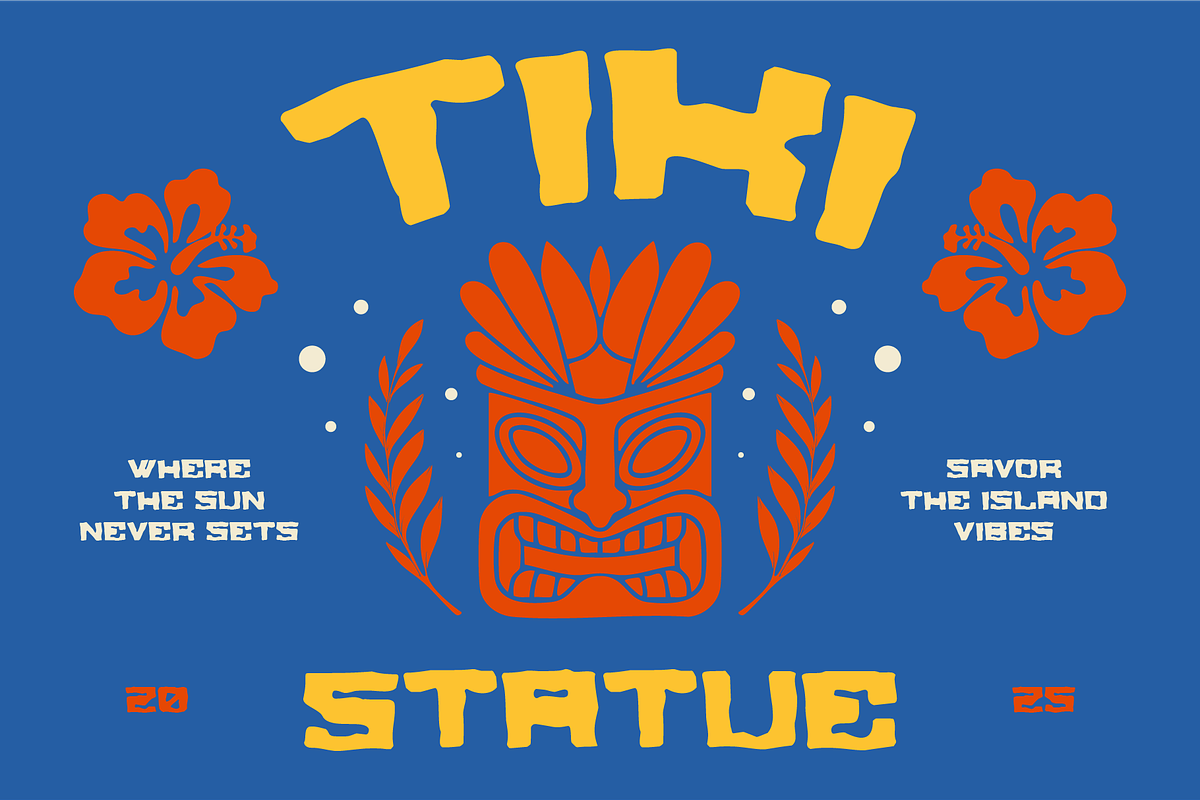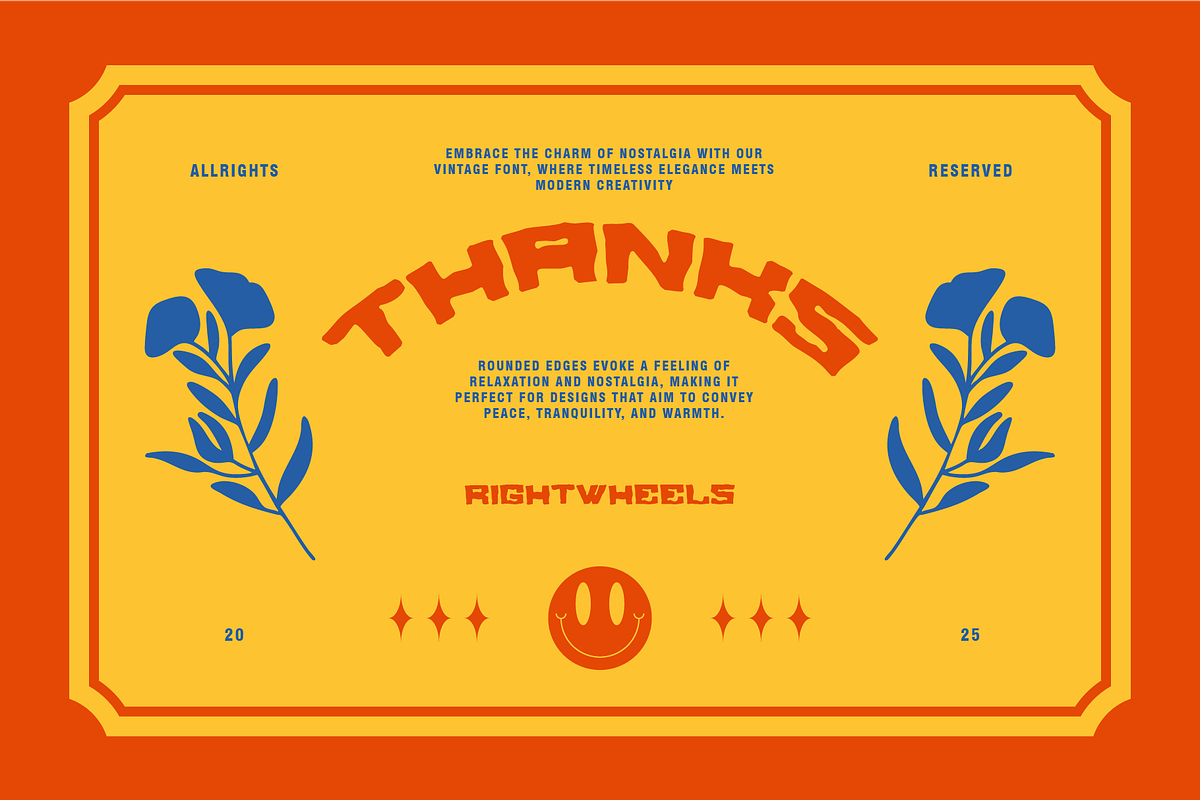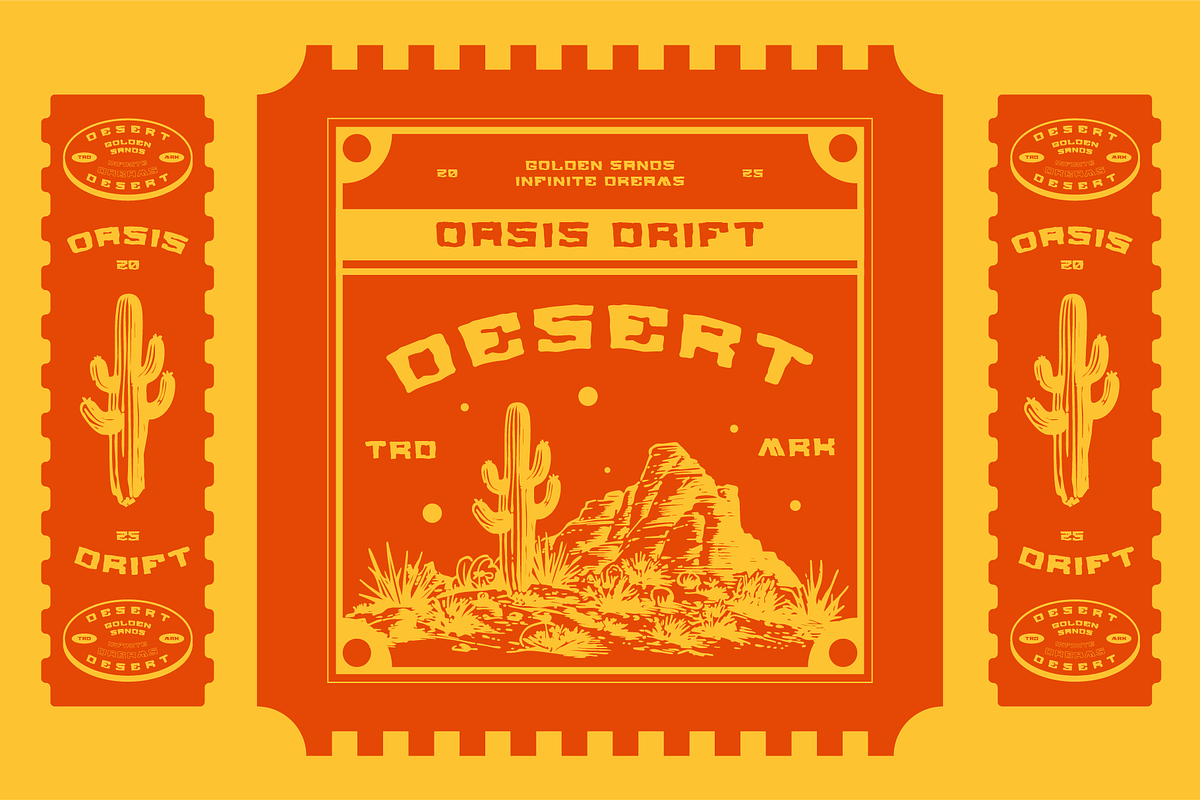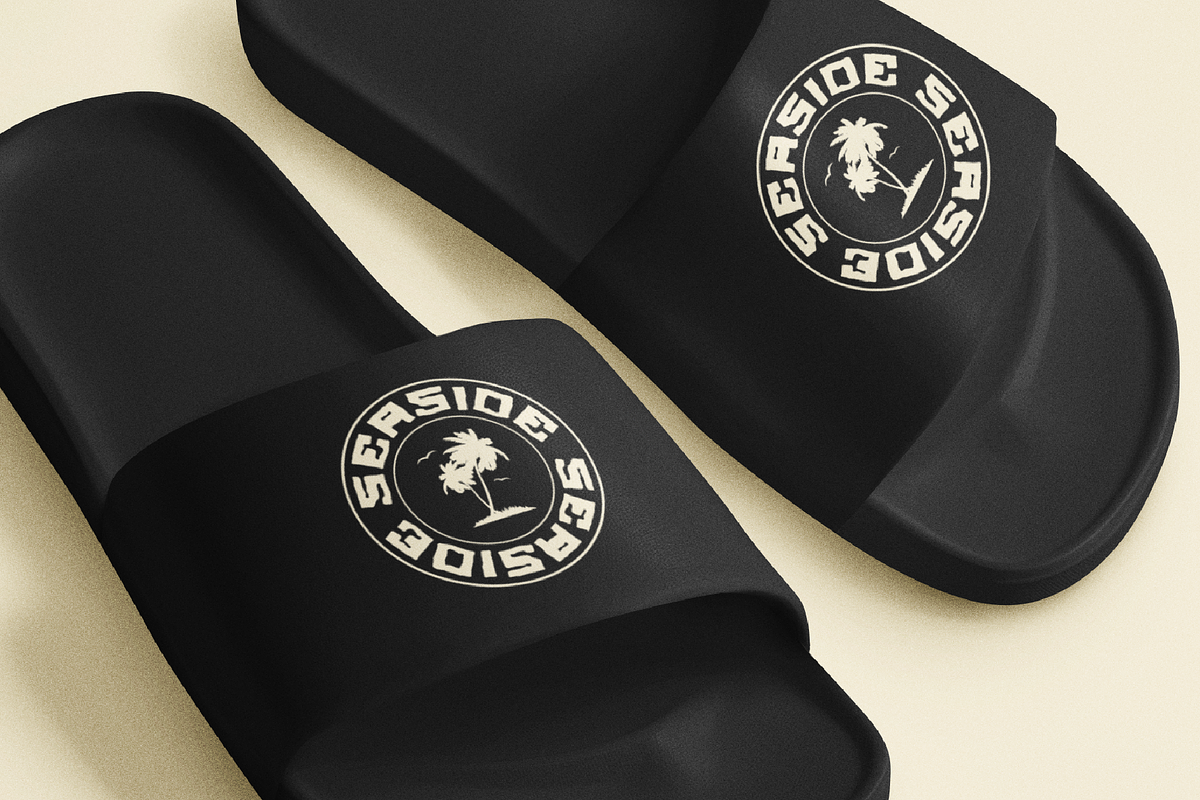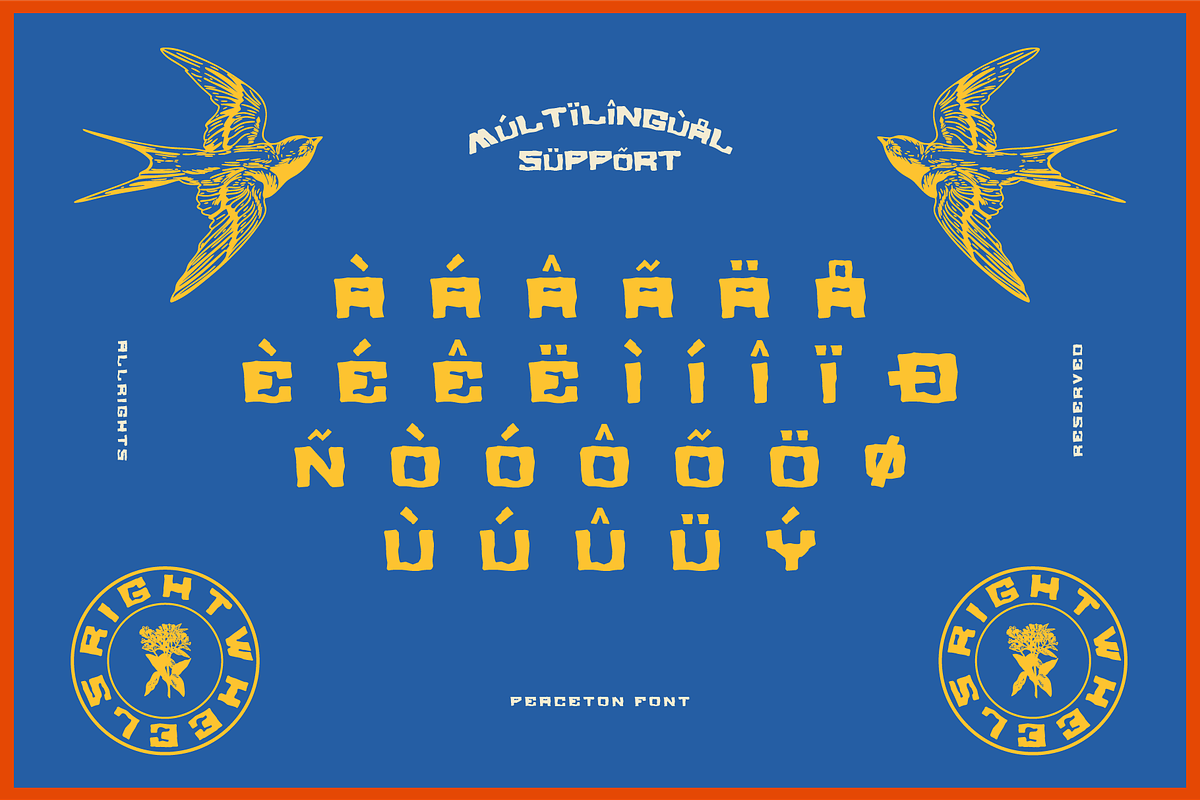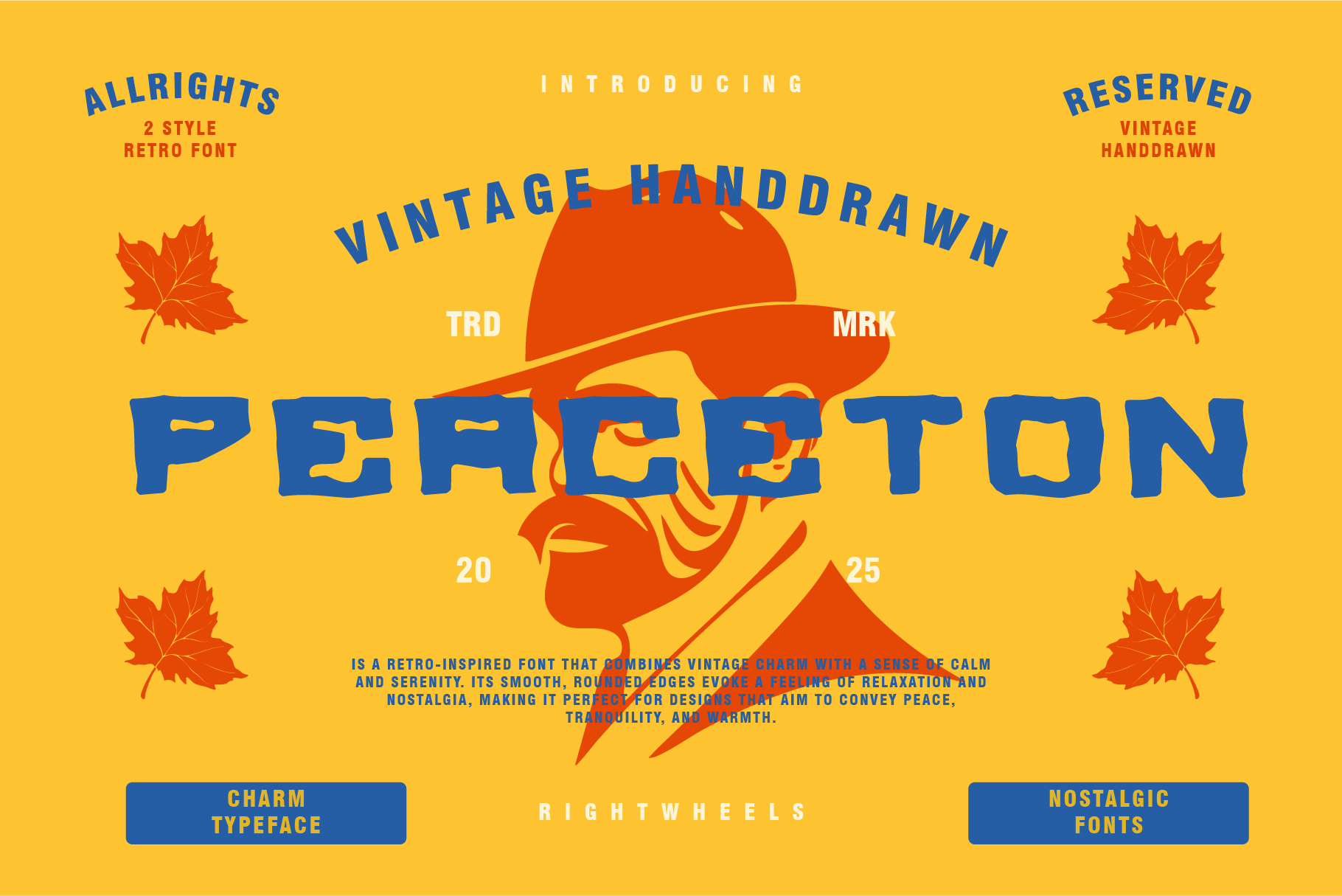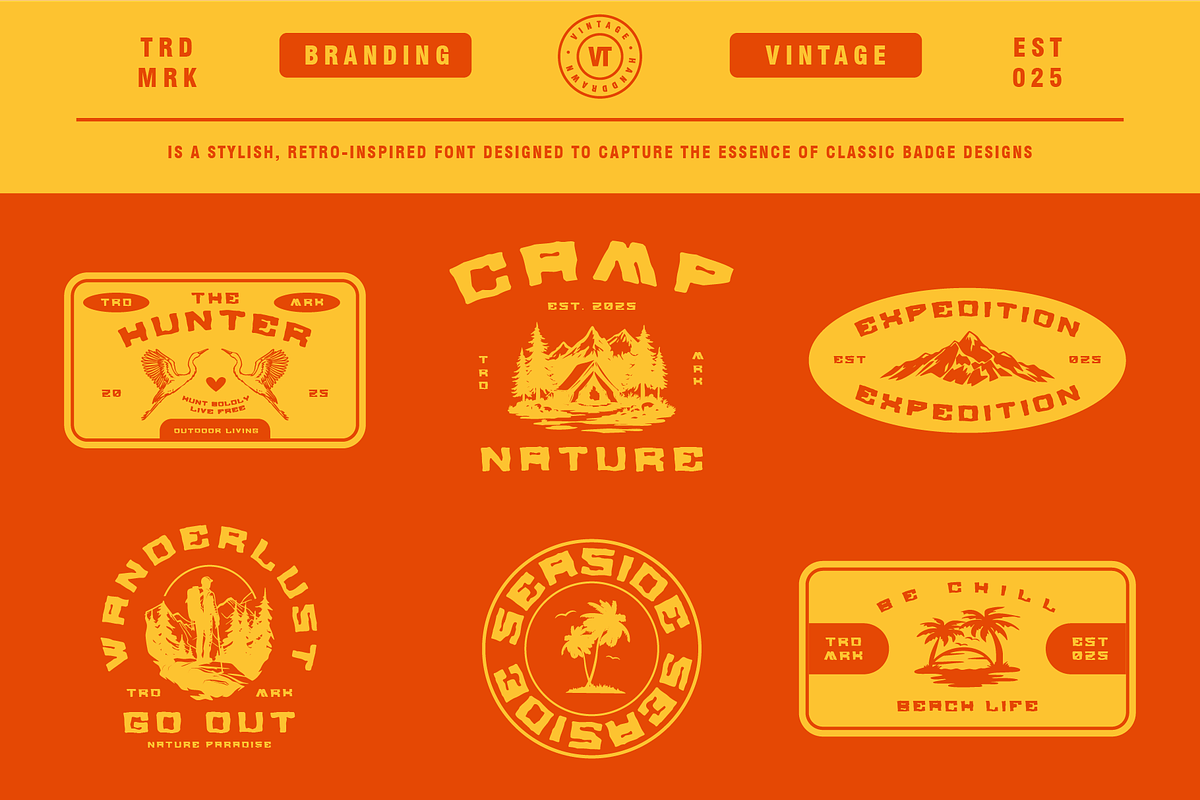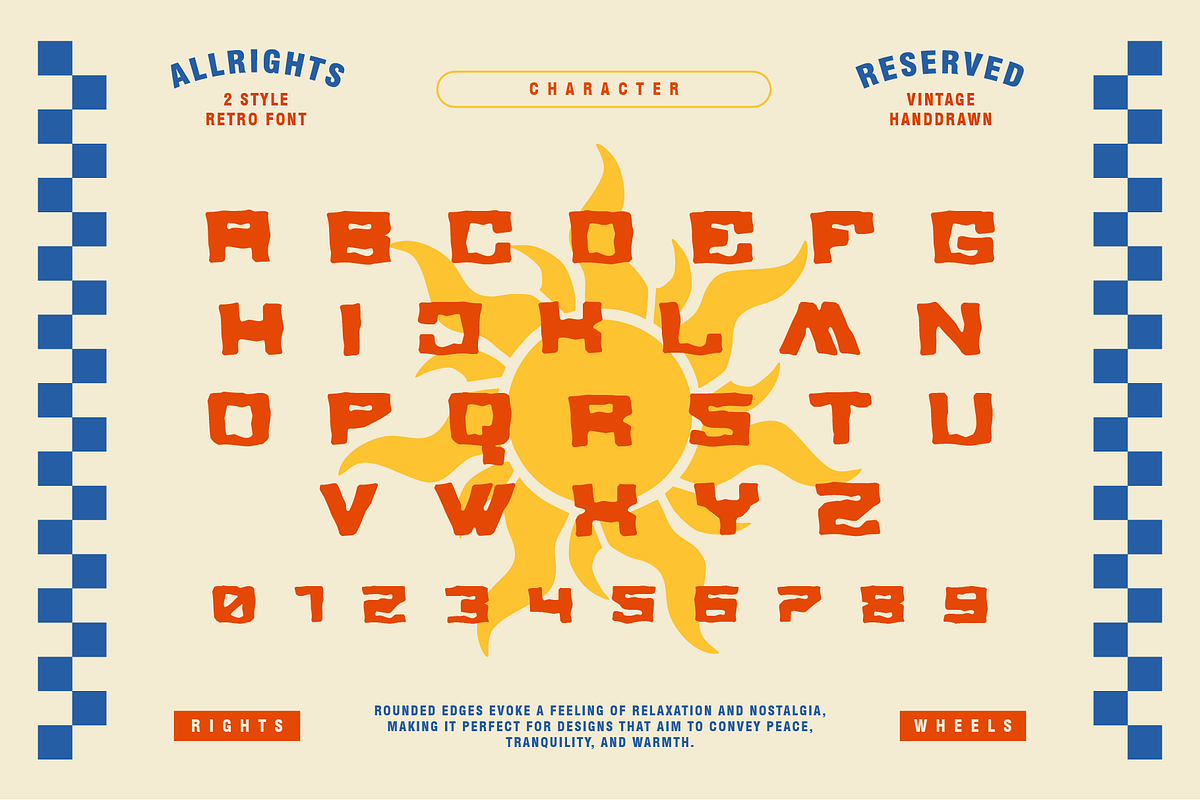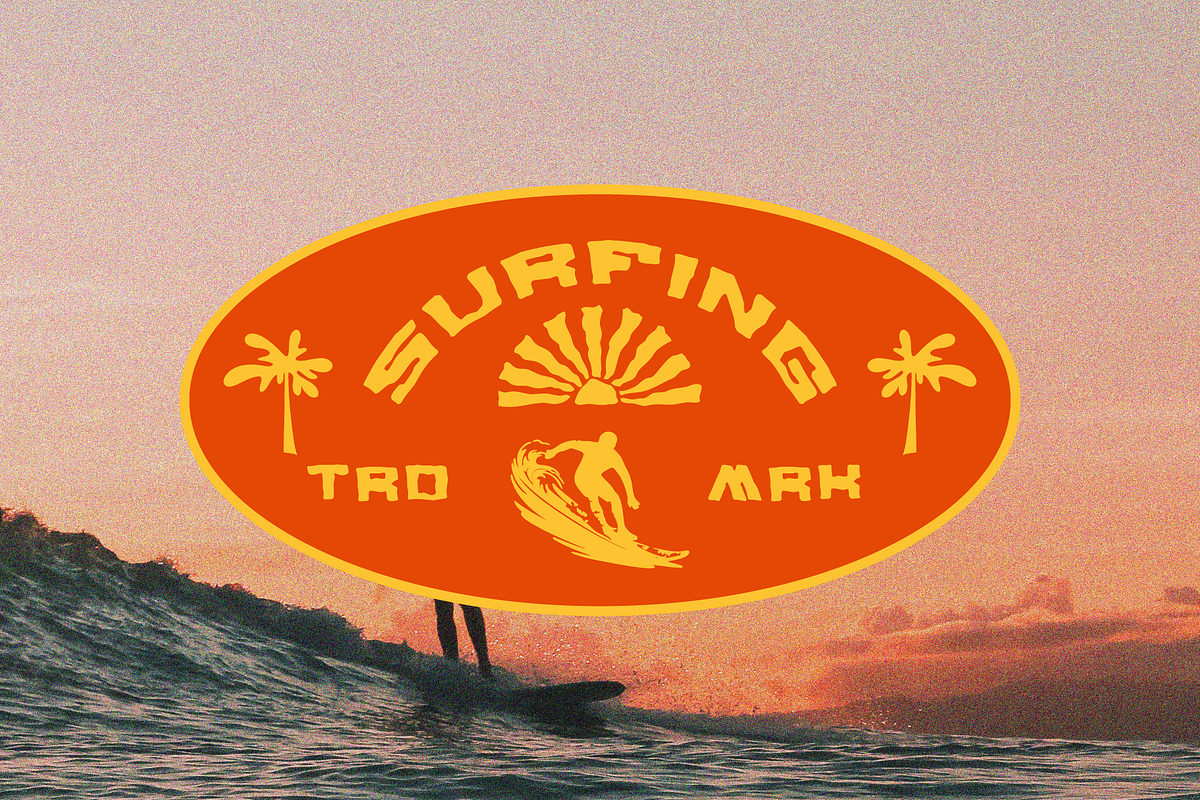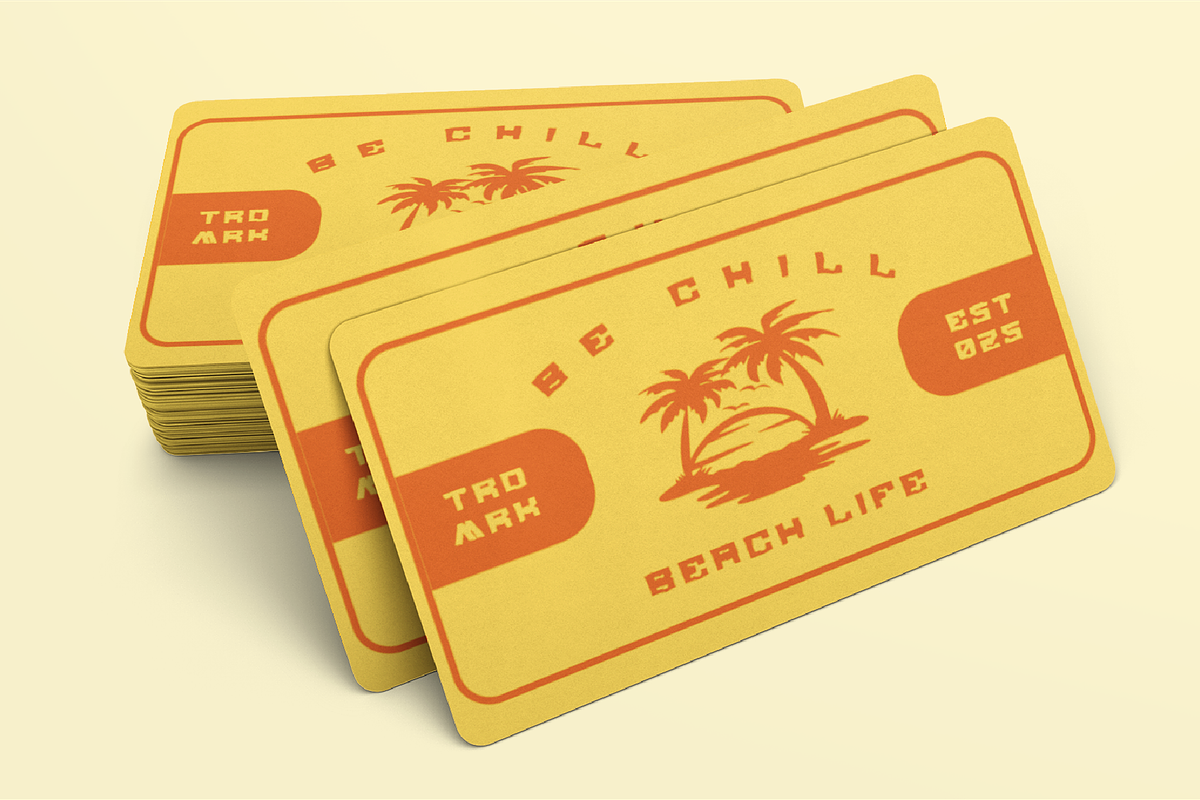
PEACETON - Retro Display Font
Peaceton is a retro-inspired font that combines vintage charm with a sense of calm and serenity. Its smooth, rounded edges evoke a feeling of relaxation and nostalgia, making it perfect for designs that aim to convey peace, tranquility, and warmth. The font blends classic retro elements with a modern twist, offering a versatile option for both contemporary and nostalgic projects. Whether used in branding, posters, or social media, Peaceton brings a laid-back vibe with a touch of old-school flair.